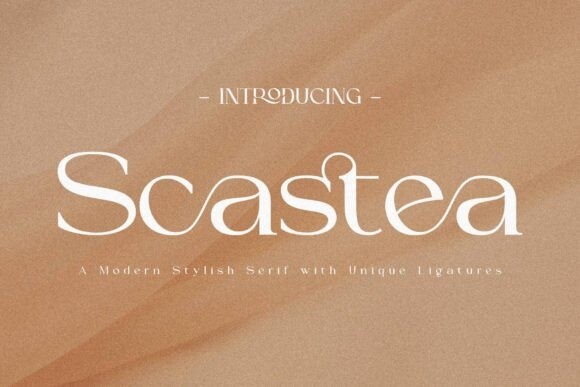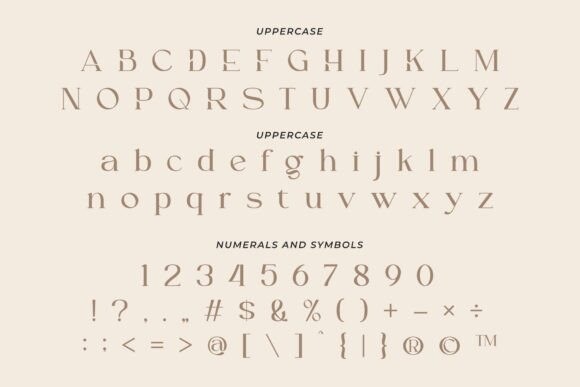
Scastea Font
Scastea Font is a modern and elegant serif font that features various beautiful ligatures and alternates. This font is perfect for formal and elegant design projects, such as logos, branding, business cards, invitations, and more.